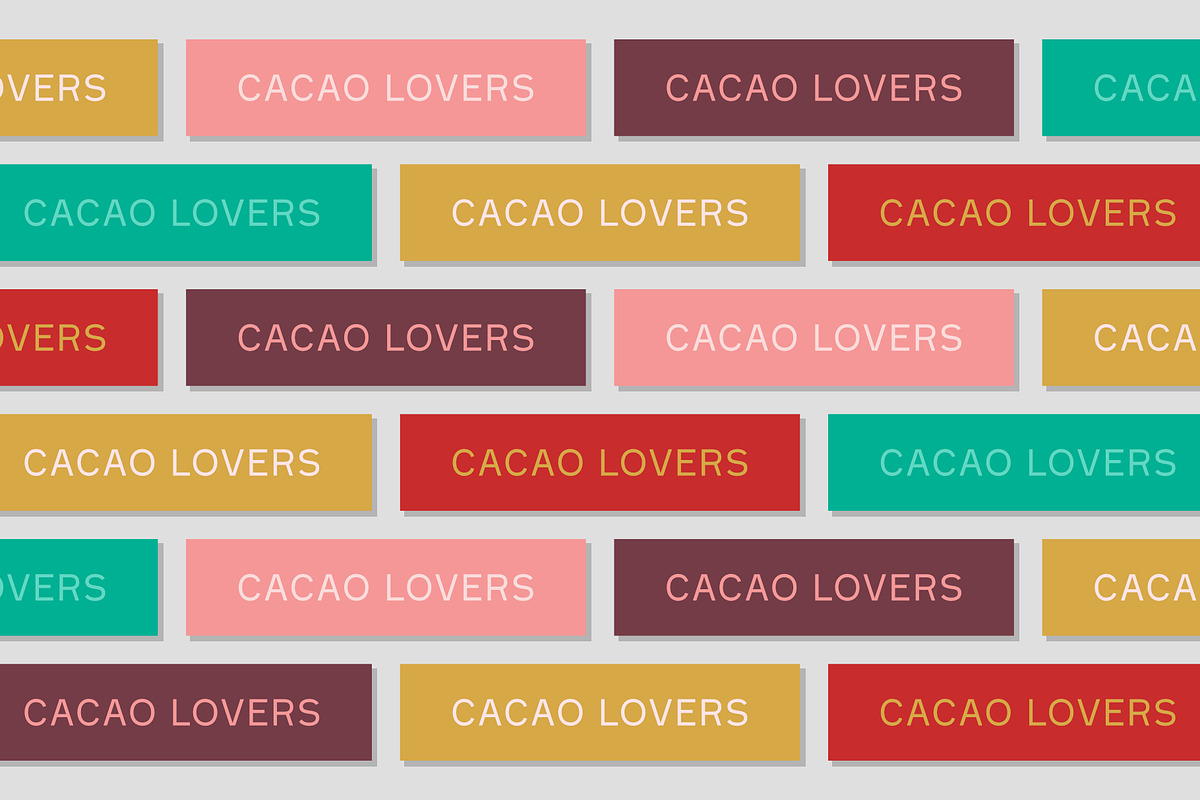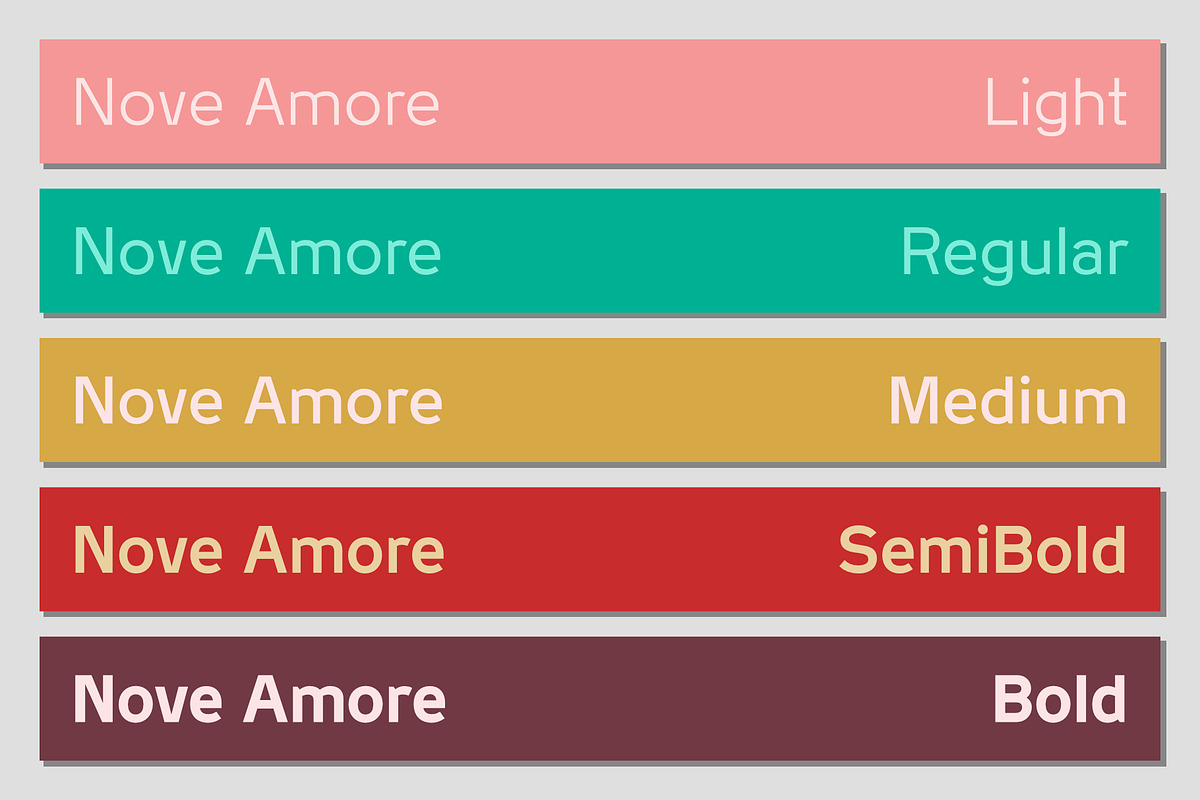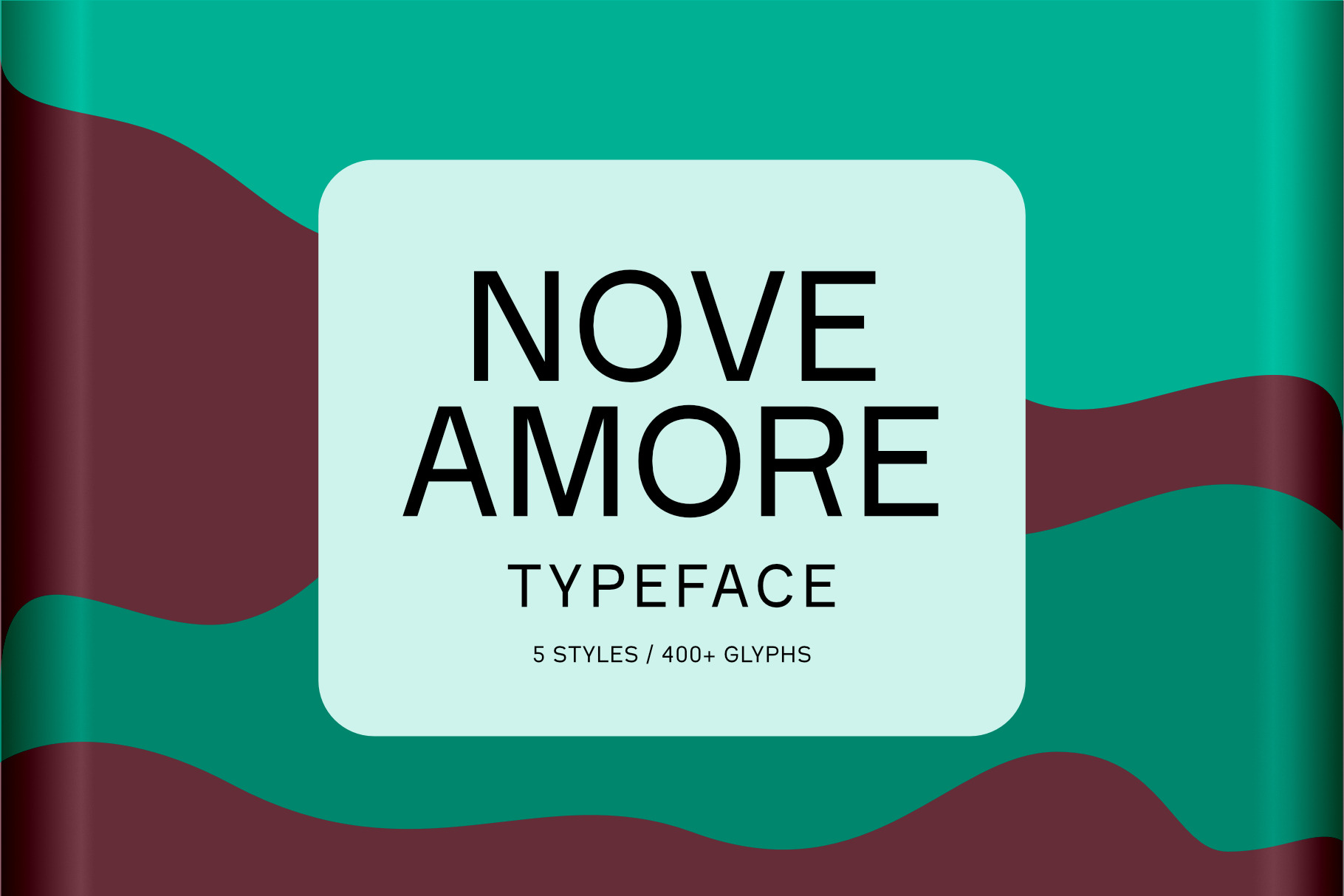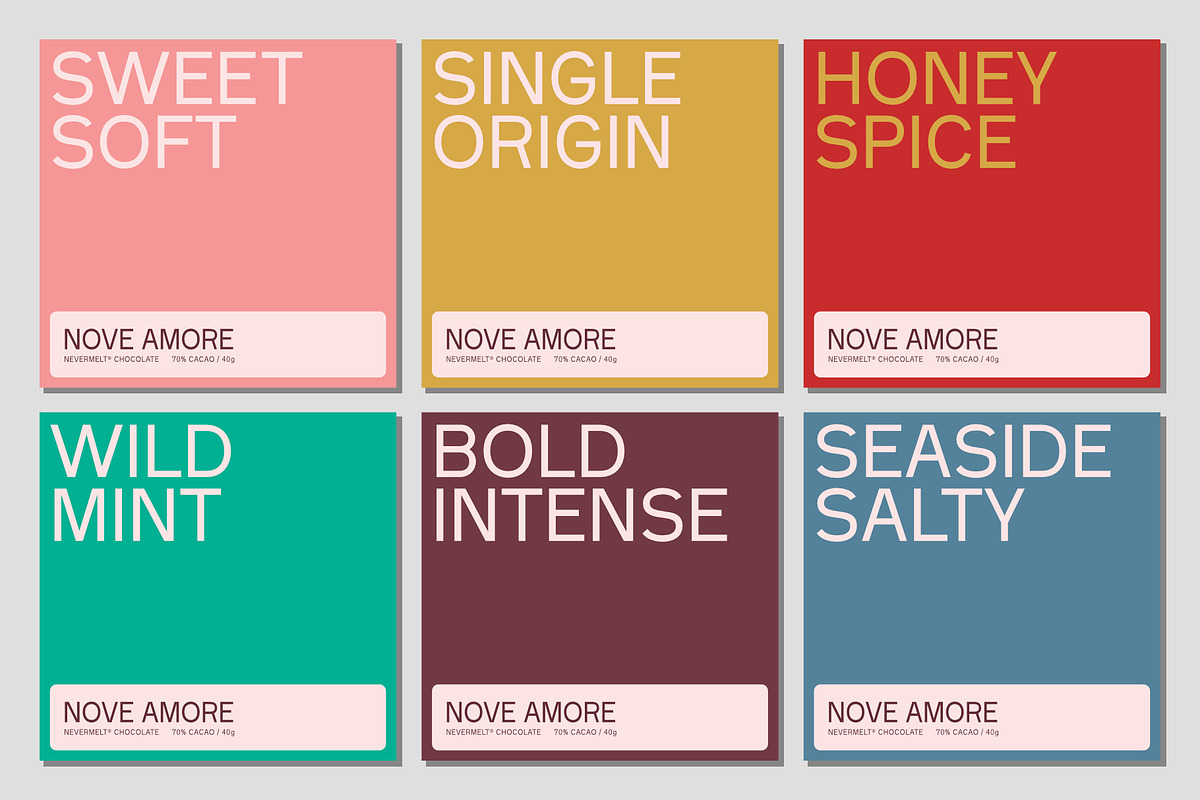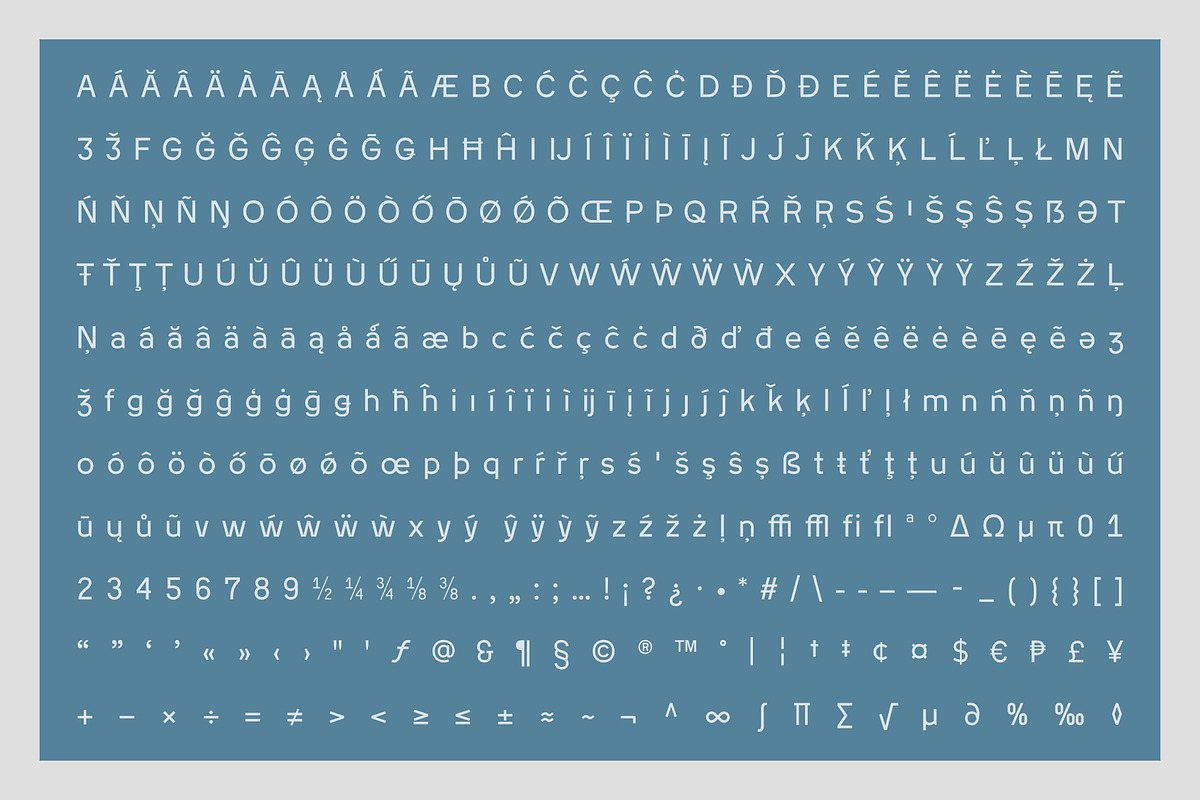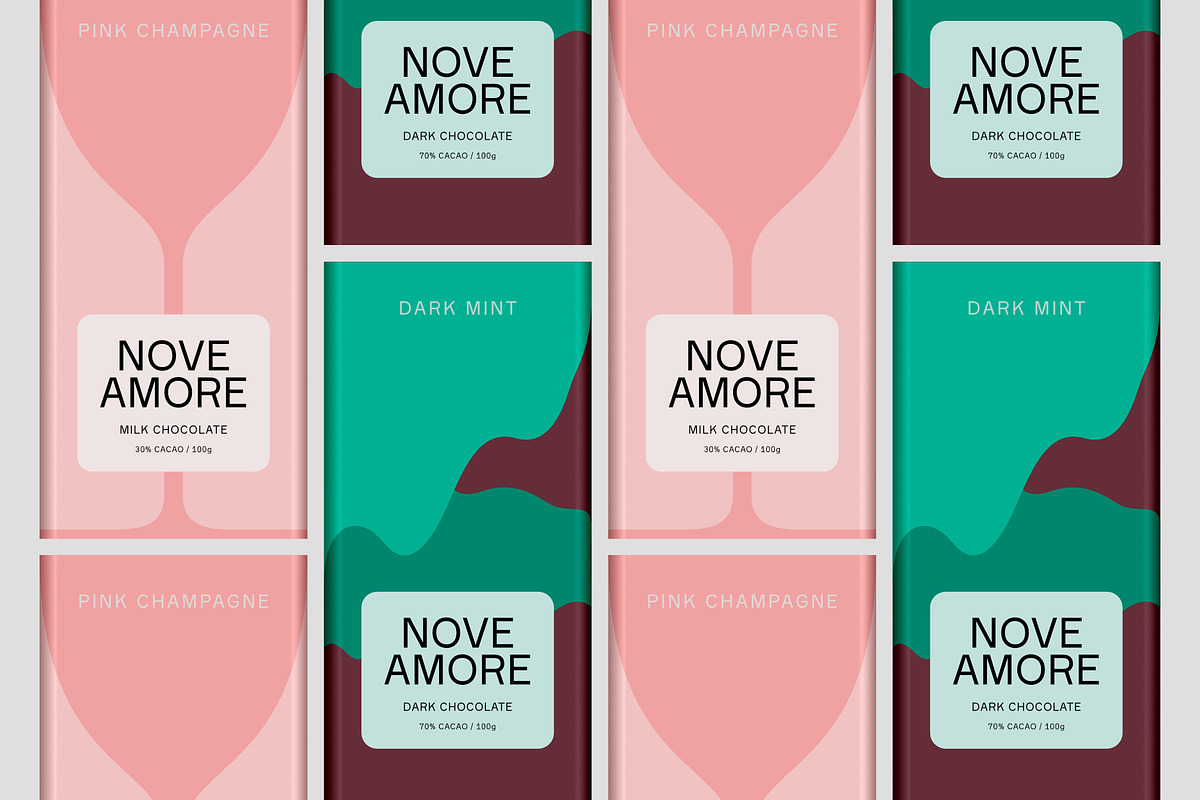
Nove Amore Typeface
Nove Amore is a low contrast sans serif typeface with a large x-height and spacious counters. The stroke width is kept very mono-linear which lends to display use.
- Design and Development: Alfredo Marco Pradil
- Foundry: Hanken Design Co.
- Glyphs: 400+ per style
- Styles: 5
- Class: Sans Serif